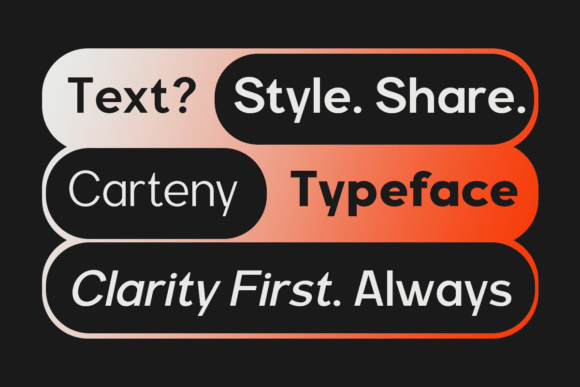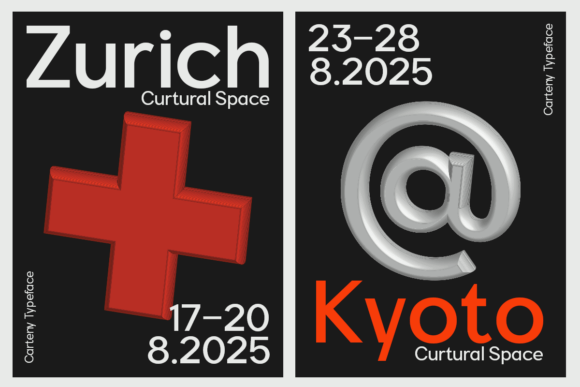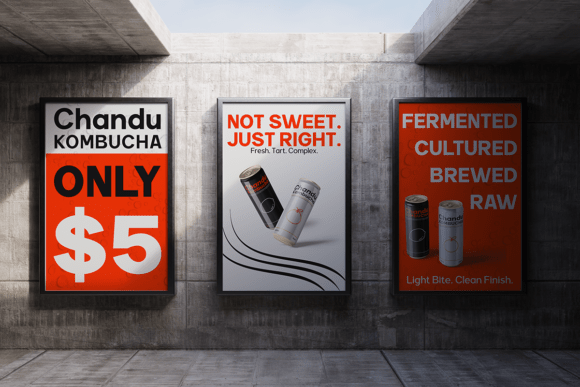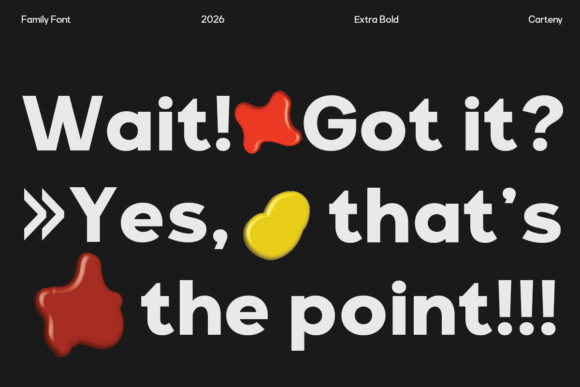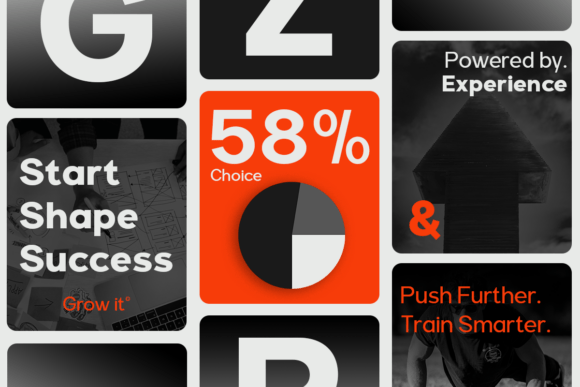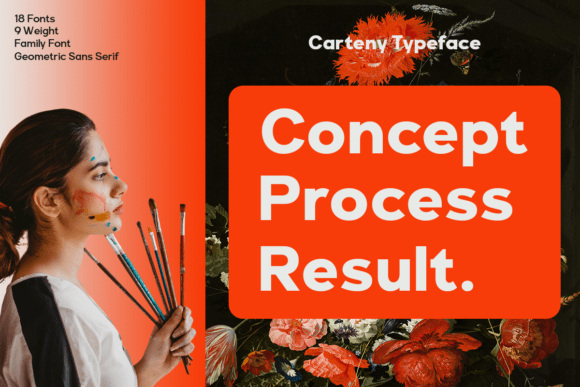
Introducing Carteny: The Ultimate Geometric Sans Family Font for Modern Design
In the world of typography, a well-crafted font can make all the difference in elevating a design from good to great. For designers and crafters seeking a modern, versatile, and elegant sans serif font, look no further than Carteny. This geometric sans family font is specifically designed to deliver clarity, balance, and contemporary sophistication, making it the perfect addition to your design arsenal.
Built on Clean Geometry and Precise Proportions
Carteny is founded on the principles of clean geometry and precise proportions, resulting in a sleek visual rhythm that exudes professionalism, versatility, and timelessness. This font family is ideal for modern design systems that demand both beauty and performance. With its carefully crafted weights and harmonious spacing, Carteny provides designers with full creative flexibility to build structured layouts, strong hierarchies, and polished compositions.
A Font Family for the Modern Designer
Carteny is created with the needs of branding designers, creative studios, startups, and marketing teams in mind. This powerful typographic foundation is suitable for a wide range of visual projects, including:
- Brand identity and logo design
- UI/UX, websites, and mobile apps
- Editorial layouts and advertising campaigns
- Social media graphics and packaging
- Corporate communication and more
Whether you’re working on a large-scale branding project or a small design endeavor, Carteny ensures consistency, readability, and refined visual impact across every platform.
Key Features of Carteny
So, what sets Carteny apart from other font families? Here are some of its key features:
- 18 font styles: Carteny offers a comprehensive range of font styles, allowing designers to experiment with different weights and styles to achieve the perfect look.
- Carefully crafted weights: Each weight is meticulously designed to provide a harmonious and balanced visual flow.
- Harmonious spacing: Carteny’s spacing is optimized for maximum readability and aesthetic appeal.
Why Choose Carteny?
With so many font families available, why choose Carteny? Here are just a few compelling reasons:
- Versatility: Carteny is suitable for a wide range of design projects, from digital applications to print materials.
- Legibility: Carteny’s clean geometry and precise proportions ensure exceptional readability, even at small font sizes.
- Elegance: This font family exudes a sense of sophistication and contemporary elegance, perfect for brands seeking to elevate their visual identity.
In conclusion, Carteny is a game-changing geometric sans family font that offers designers a powerful tool for creating stunning visual compositions. With its clean geometry, precise proportions, and harmonious spacing, Carteny is the perfect choice for modern design systems that demand both beauty and performance. Whether you’re a branding designer, creative studio, startup, or marketing team, Carteny provides a versatile and elegant typographic foundation for a wide range of visual projects.